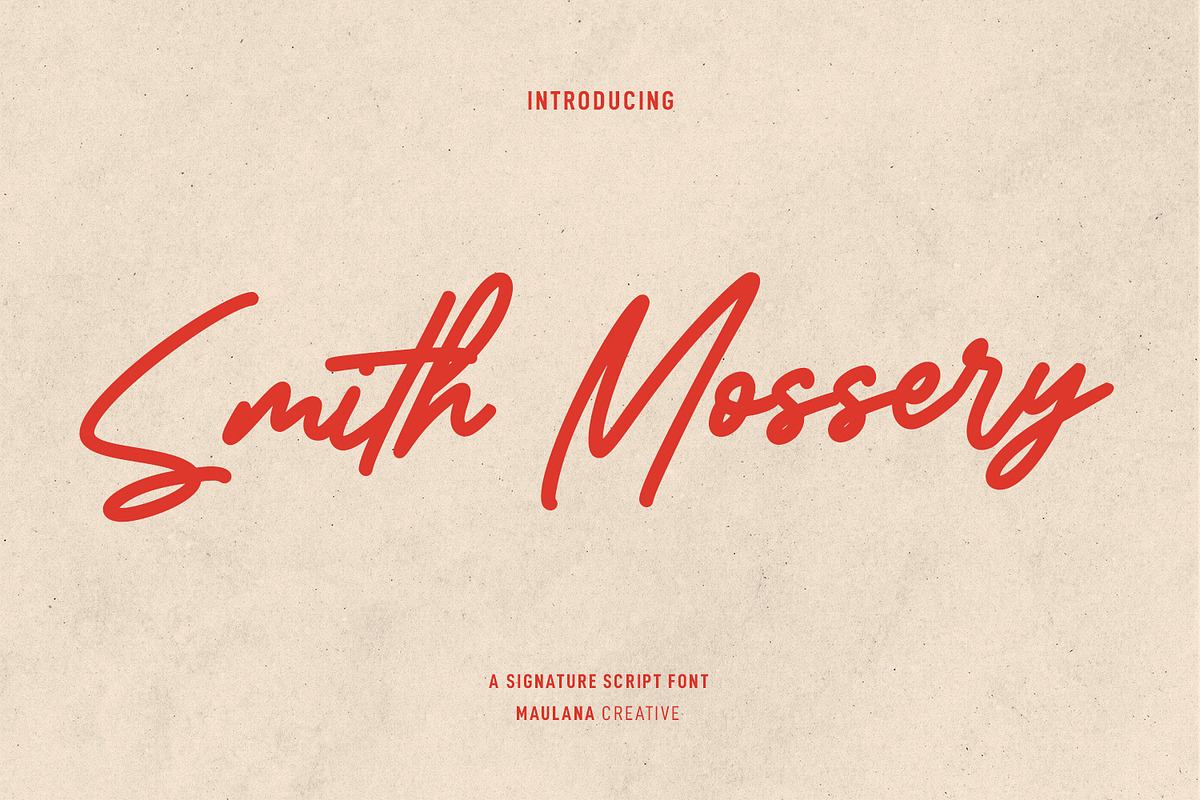
Infuse your designs with grace and personality using Smith Mossery Script Font Free Download — a beautifully flowing script typeface with handcrafted elegance. Inspired by modern calligraphy, this font is perfect for wedding invitations, boutique branding, product packaging, blog headers, and heartfelt social media content.
Smith Mossery features soft curves, fluid strokes, and a natural handwritten rhythm that gives your text an authentic and stylish look. It includes uppercase and lowercase letters, punctuation, numerals, and multilingual support — making it a versatile choice for creative professionals.